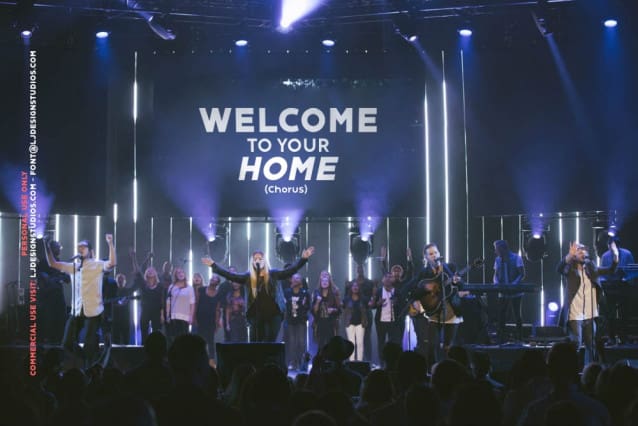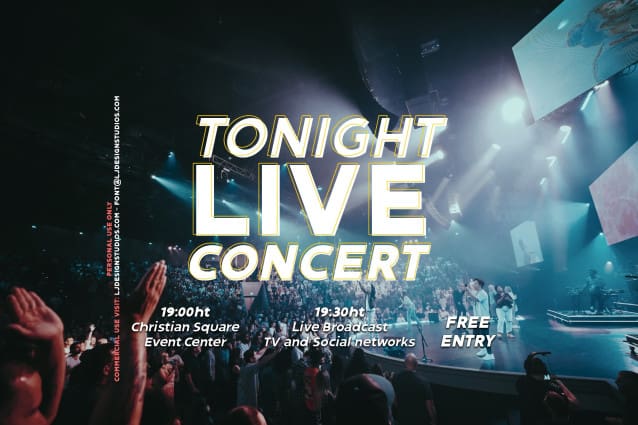
Gospel Sans Font
Gospel Sans Font is a typeface focused on the worship lifestyle, designed to assist in the use of massive audiovisuals, it was conceived and designed to support song choruses in live concert presentations that require it and for similar uses.
In addition, its modern design allows you to create modern and striking illustrative concepts, as well as its formal use in corporate, missionary purposes and much more.